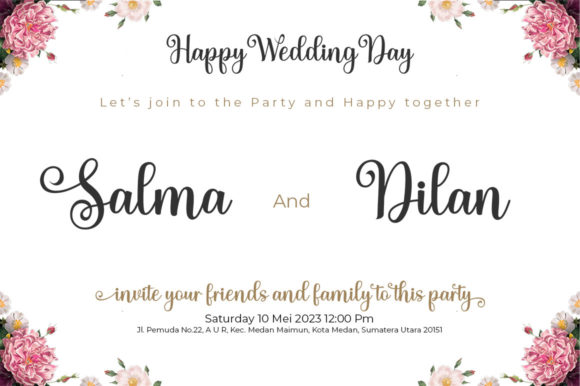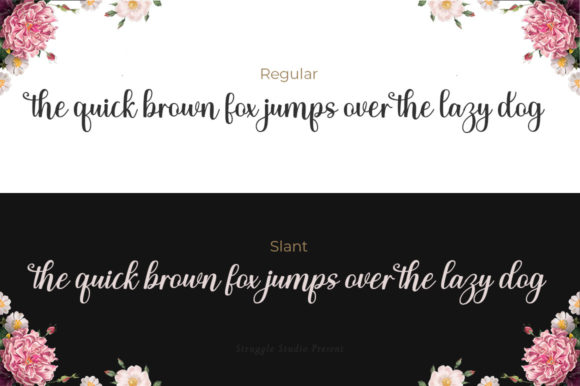
Saturday Garden is a soft and sweet calligraphic typeface, with characters dancing along the baseline. It has a casual and elegant touch.
Saturday Garden Font